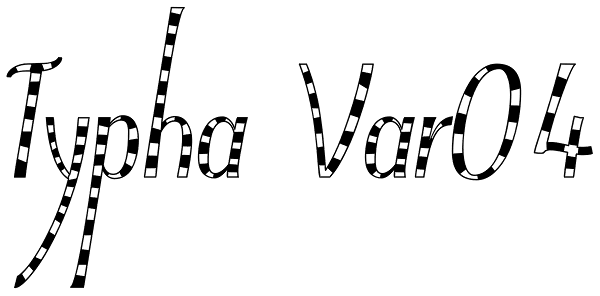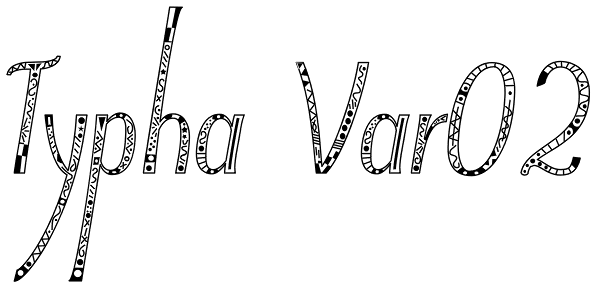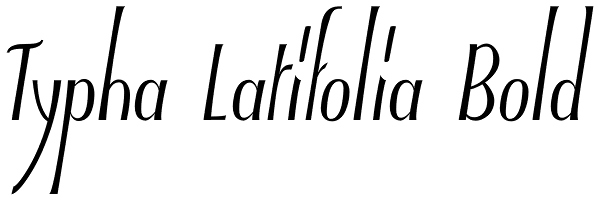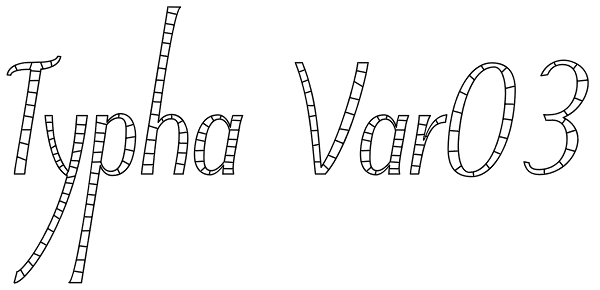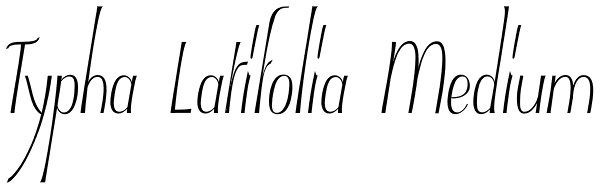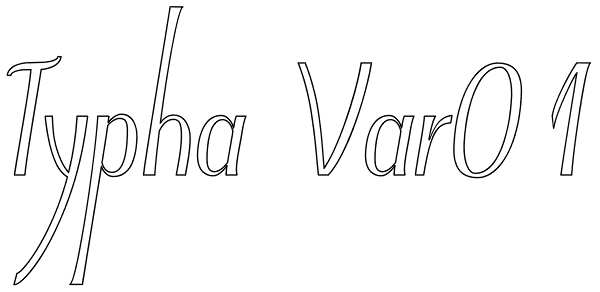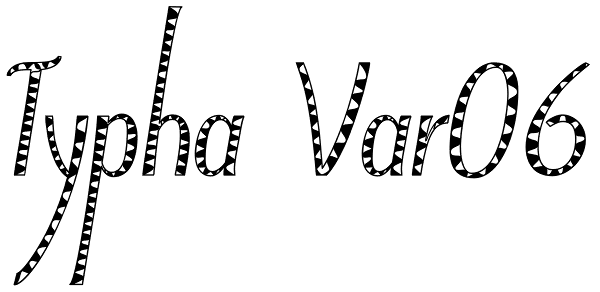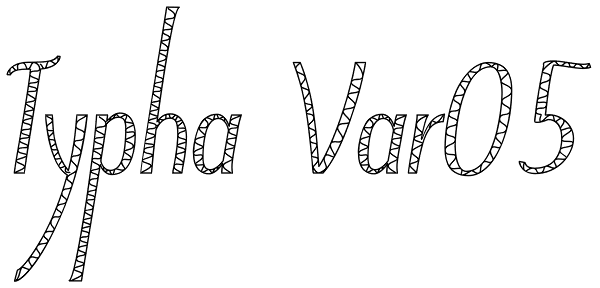
Typha Latifolia
Typha Latifolia is a plant of the swamps from the Northern Hemisphere. It is characterized by its high rangy leaves. Typha Latifolia is also a font family. It is characterized by the height of the ascenders and the descenders. Numerous ornamental...